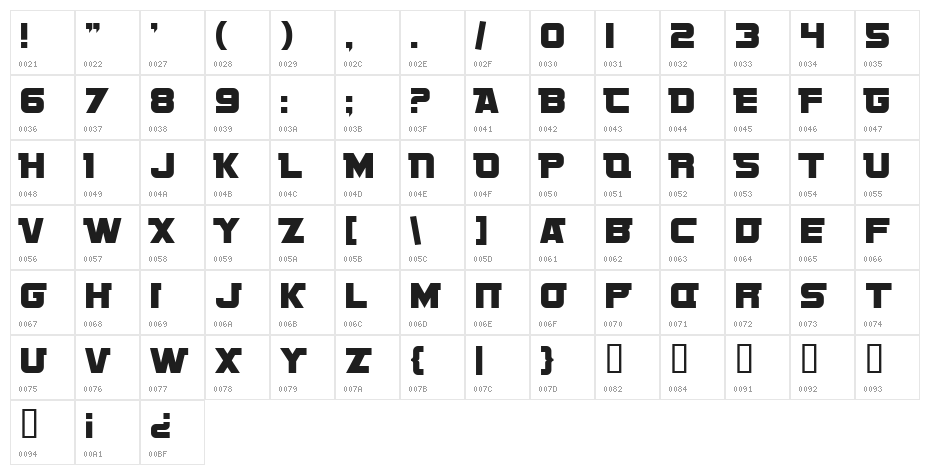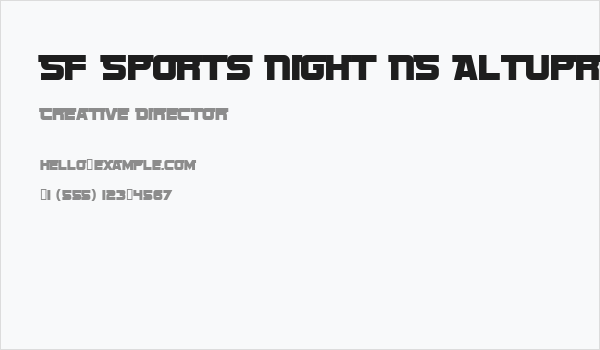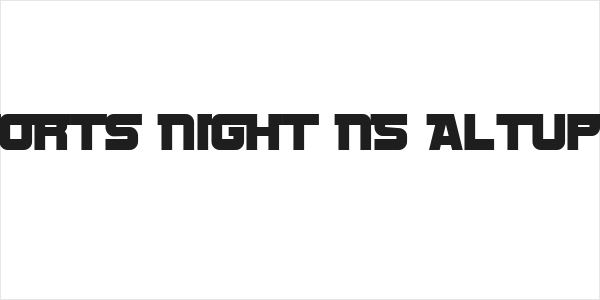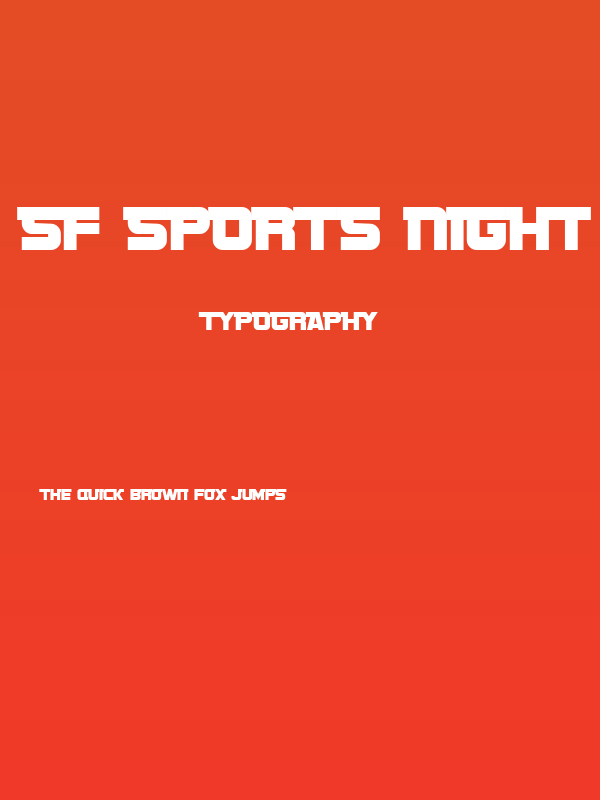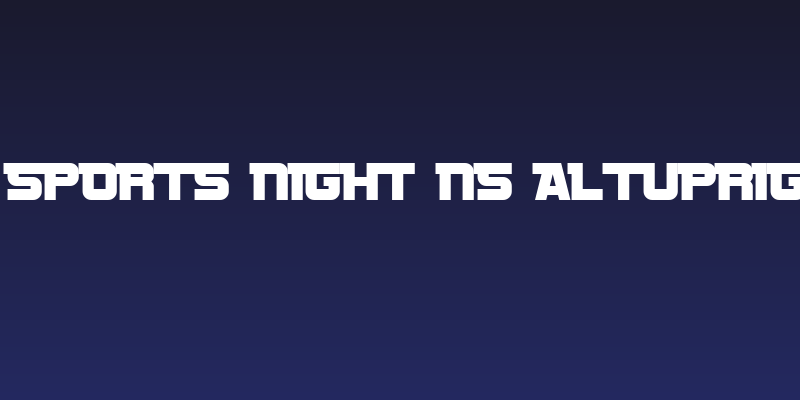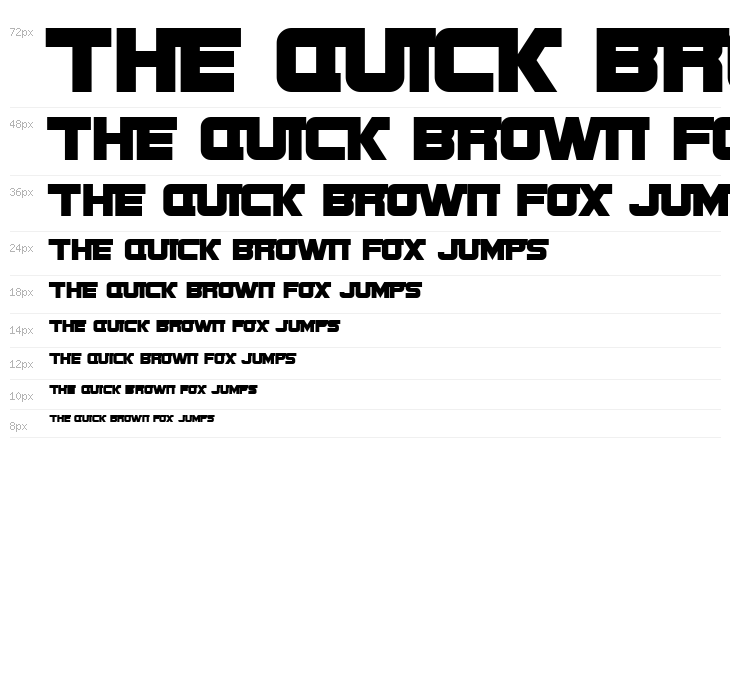
SF Sports Night NS AltUpright Font
SF Sports Night NS AltUpright Description
This font features a bold and dynamic design with strong geometric shapes and a distinct angular style. The uppercase letters are particularly striking, with a blocky appearance that conveys strength and stability. The lowercase letters maintain the same boldness, ensuring consistency across text. The numerals are equally robust, making them stand out prominently. Special characters are designed to match the overall aesthetic, providing a cohesive look. This font's boldness and angularity make it ideal for attention-grabbing headlines and impactful designs.
| Proposed Projects | Ideal for sports branding, posters, and any project requiring a bold, dynamic typeface. |